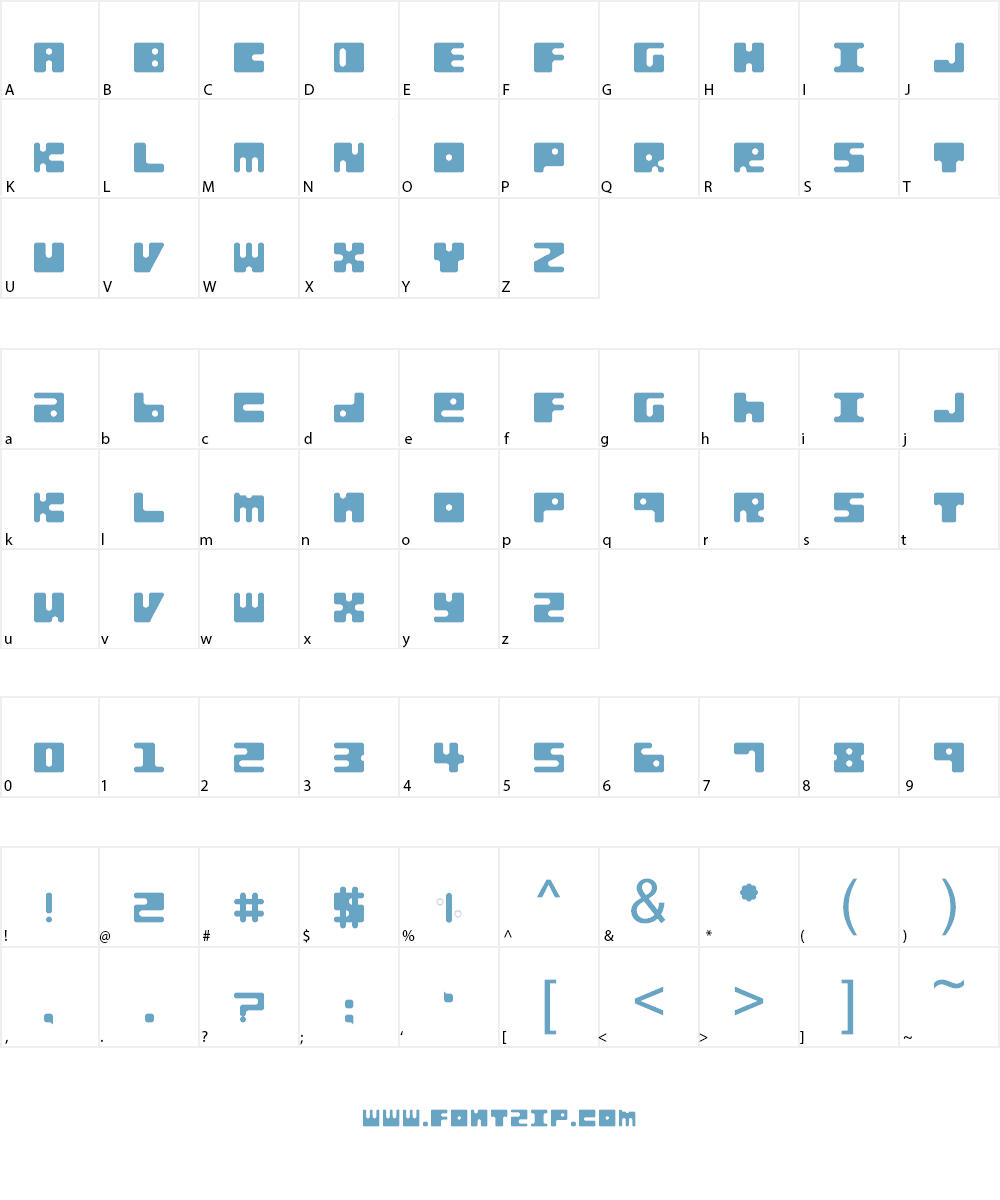
"Confection Cubes" Truetype Font
DESIGNER'S NOTES:
Shortly after I began to design this typeface, it was brought to my attention that there were a couple of similar typefaces on the market. These 'square' typefaces had one difference, however. With mine, I was intending to attain to a strictly 'square', mono-spaced typeface, that had LEGIBILITY as the utmost objective.
My hope is that this font will not only be unique, but more useable. I attempted to accomplish this by including alternative characters to a typeface that is not intended to have 'uppercase' and 'lowercase' characters.